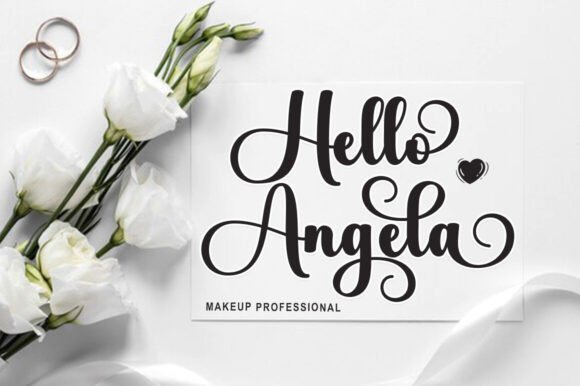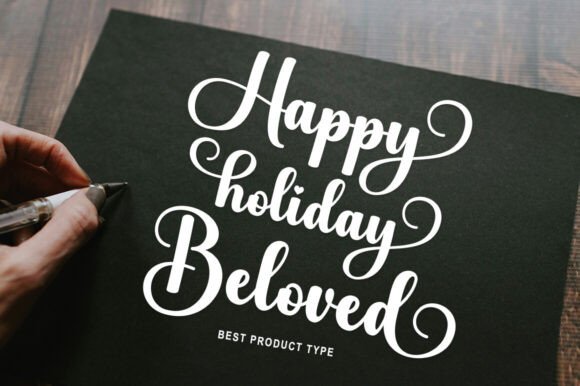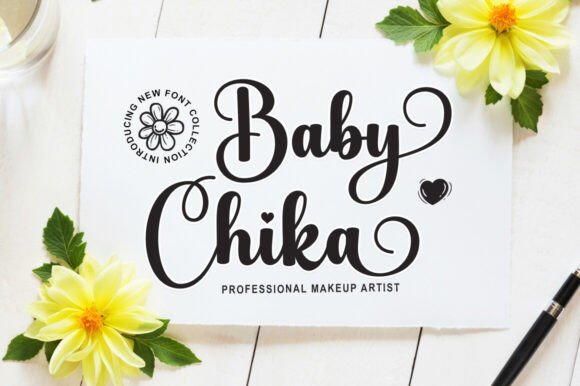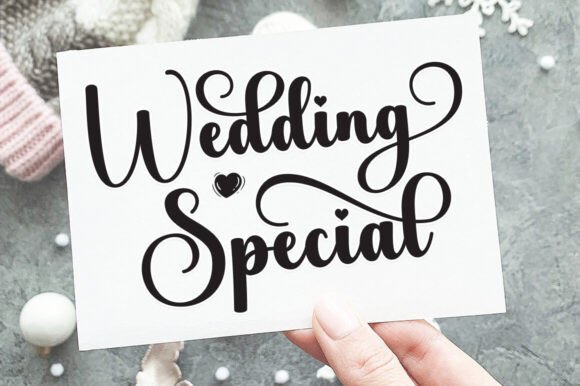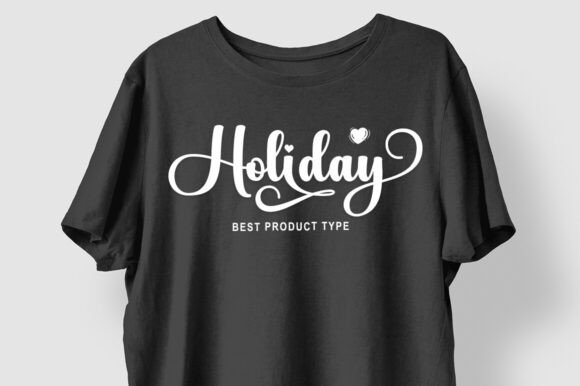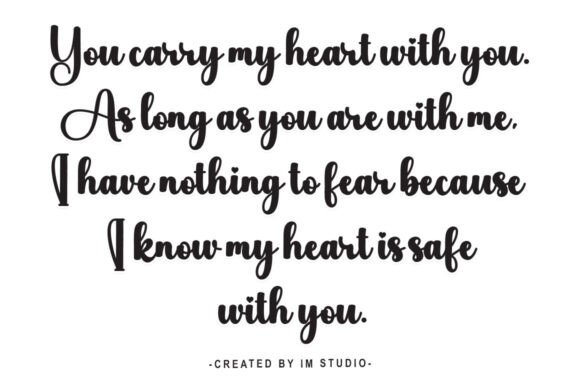
The Magic of Black Sticky Font: Elevate Your Designs with Elegance
I’ll never forget the time I was working on a wedding invitation project, and my client asked for a font that exuded classic elegance with a modern twist. I scoured the internet, tried countless fonts, but nothing seemed to fit the bill. That was until I stumbled upon Black Sticky Font. ✨ It was love at first sight! The unique blend of charm and sophistication instantly captured my attention, and I knew I had found the perfect fit for my project.
An Honest Review of Black Sticky Font
• ✅ Elegant and Sophisticated: Black Sticky Font is a striking script font that adds a touch of luxury to any design project.
• ✨ Versatile: It’s perfect for branding, titles, wedding designs, invitations, signs, logos, and labels.
• 🔥 Attention-Grabbing: The font’s unique style accentuates any design, making it stand out from the crowd.
While Black Sticky Font is an amazing addition to any design project, there are a few things to keep in mind: ⚠️
• 🤔 Legibility at Small Sizes: The font can be a bit tricky to read at very small sizes, so it’s best to use it at larger sizes (around 24px or larger) for optimal legibility.
• ⚠️ Limited Use in Body Text: Due to its script nature, Black Sticky Font is best used for headings, titles, and accents, rather than body text.
The Backstory of Black Sticky Font
The story behind Black Sticky Font is one of passion and dedication. The designer, inspired by the timeless art of classic calligraphy, aimed to create a font that would bring a touch of elegance and sophistication to modern designs. With a keen eye for detail and a deep understanding of typography, the designer crafted Black Sticky Font to be a versatile and attention-grabbing addition to any design project.
A: Black Sticky Font is a striking script font that combines charm and elegance, perfect for adding a touch of sophistication to design projects.
A: Due to its script nature, Black Sticky Font is best used for headings, titles, and accents, rather than body text.